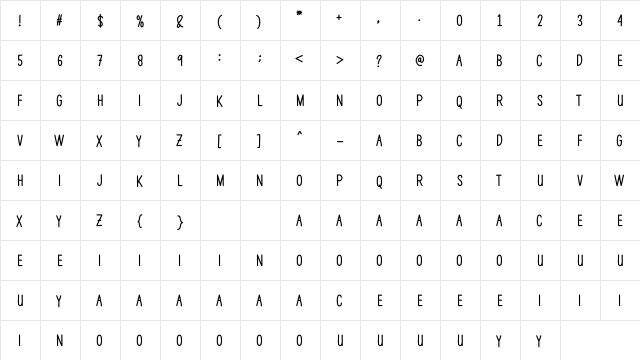
Sleep Night Regular
Design Context for Sleep Night Typeface
Sleep Night offers clean, dependable letterforms without strong stylistic allegiance, making it a practical choice for designers who need flexibility.
Pro Tip: Pair Sleep Night with a font of contrasting weight or personality to build a more expressive typographic hierarchy.